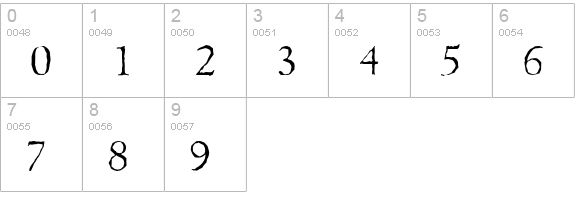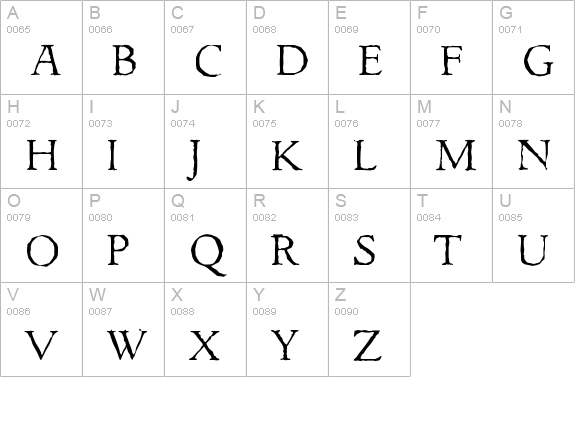
GouditaAntique-Light-Regular is a refined, elegant variant in the GouditaAntique typeface family \xE2\x80\x94 well suited to elegant body text, refined sub-headings, and luxury branding.
GouditaAntique-Light-Regular font is a timeless and elegant typeface that exudes sophistication and charm. Its delicate serifs and graceful curves make it a perfect choice for projects that require a touch of vintage flair. The font's light weight adds a sense of airiness and refinement to any design, making it ideal for wedding invitations, branding materials, and editorial layouts. Best of all, GouditaAntique-Light-Regular font is available for free download at FontsMarket.com. This means you can easily access this beautiful typeface and use it in your projects without any cost. Whether you're a professional designer looking to elevate your work or a hobbyist in need of a stylish font, GouditaAntique-Light-Regular font is sure to impress with its classic beauty and versatility. Download it today and add a touch of timeless elegance to your designs.